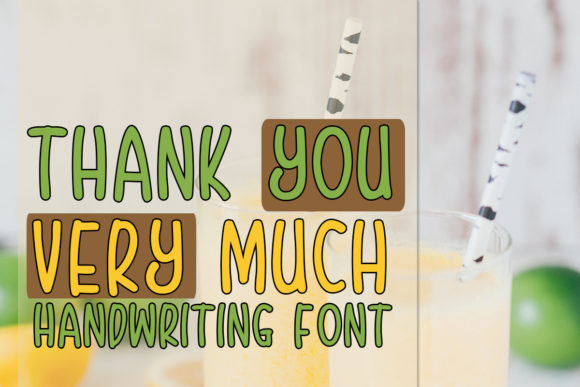
Introduction to Lemon Torte Font
Have you ever been brainstorming a creative project and suddenly, a burst of sunshine comes your way? Maybe it’s the spark of an idea, or perhaps it’s the discovery of a new design resource that sets your heart aflutter. For designers, these moments are precious, and that’s exactly what happened when we stumbled upon the Lemon Torte Font. This quirky and jolly display font is a game-changer for any high-quality creative project that requires a touch of whimsy and beauty.
With its transparent background and free download option, the Lemon Torte Font is an invaluable asset for designers looking to add a personal touch to their work. Whether you’re crafting a book cover, designing a poster, or creating a children’s game, this font is sure to bring a smile to your face and delight your audience.
Key Features of Lemon Torte Font
- High-quality font with a transparent background, ideal for creative projects requiring a clean and minimalist design.
- Designed with a modern and elegant aesthetic, perfect for use in logos, branding materials, and other design elements.
- Designed to be versatile and adaptable, suitable for use in a wide range of creative projects, from business cards to website headers.
Honest Review: Lemon Torte Font
I recently came across the Lemon Torte Font and I must say it’s a great addition to any designer’s toolkit. This high quality font is perfect for any creative project that needs a touch of elegance and sophistication.
One of the standout features of the Lemon Torte Font is its transparent background, which makes it easy to pair with any image or design element. This is especially useful for designers who want to create a seamless and cohesive look.
- ✨ High quality design with a lot of character
- ✨ Transparent background makes it easy to pair with other design elements
- ⚠️ Limited number of font weights and styles
- ⚠️ Not suitable for use in very small font sizes
Overall, I’m impressed with the Lemon Torte Font and would definitely recommend it to any designer looking for a high quality, versatile font.
Experiment with different font sizes, colors, and combinations to create unique and visually appealing designs. Use the transparent background feature to create a seamless look and feel.
Common Use Cases for Lemon Torte Font
The Lemon Torte Font is perfect for a variety of creative projects, including:
- Wedding invitations and decorations
- Party banners and signs
- Branding materials and business cards
- Presentation slides and reports